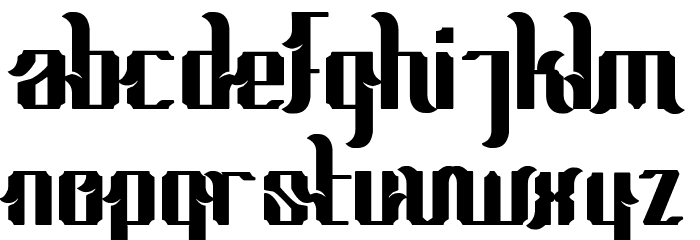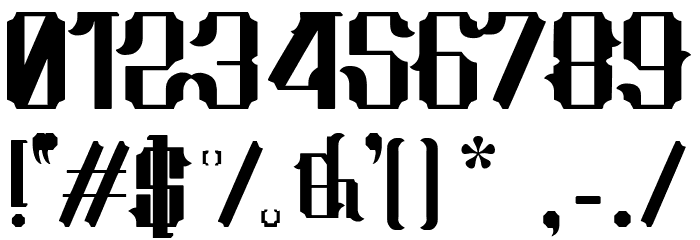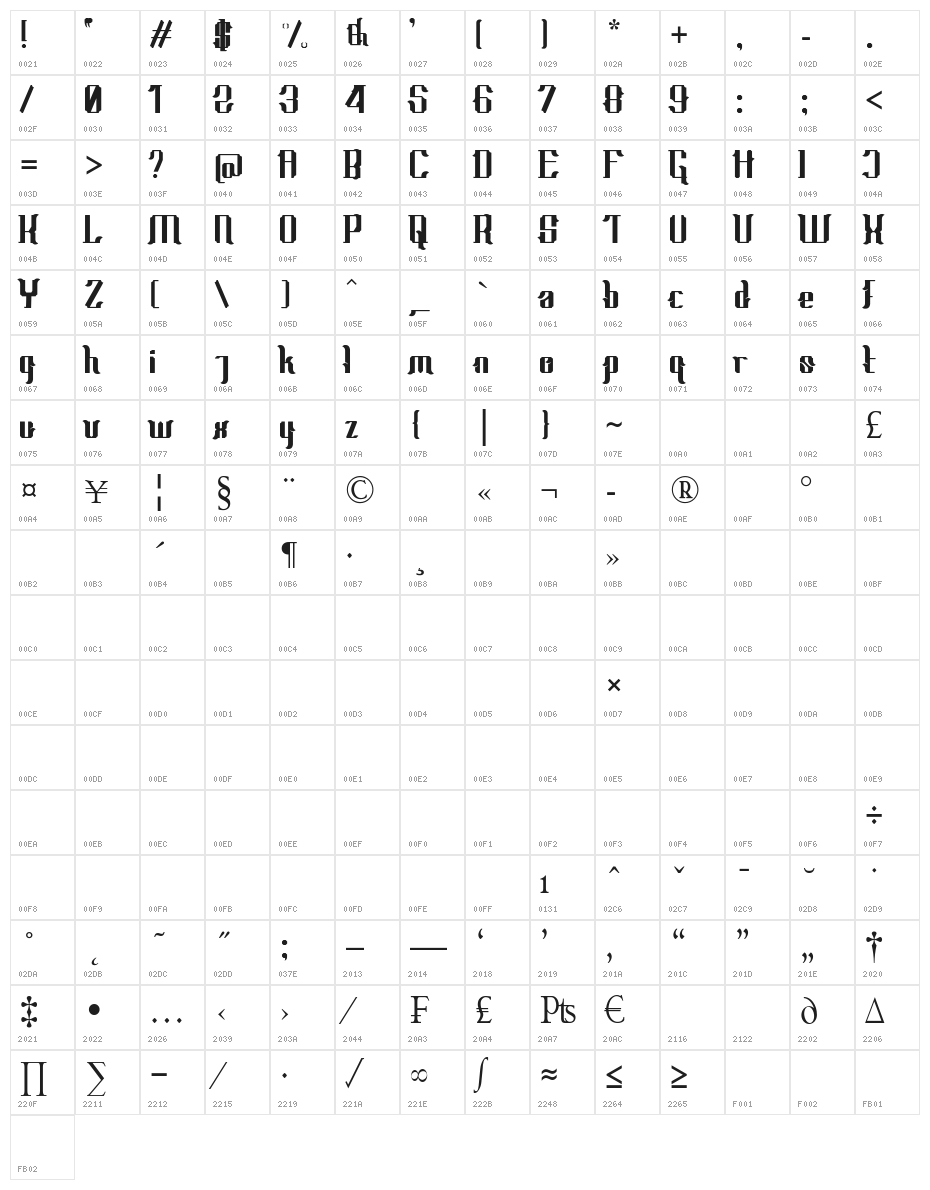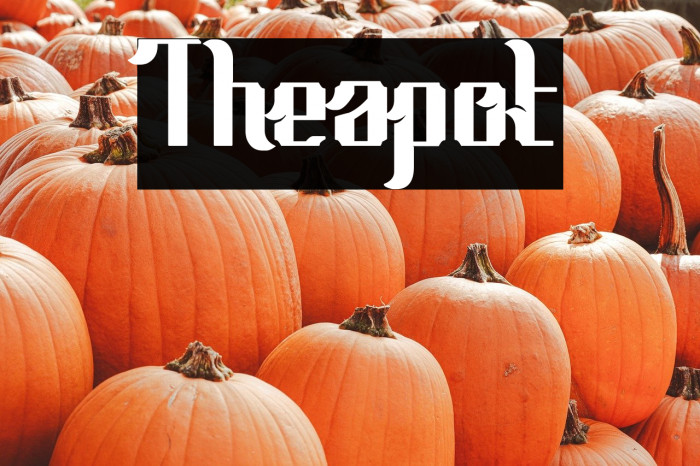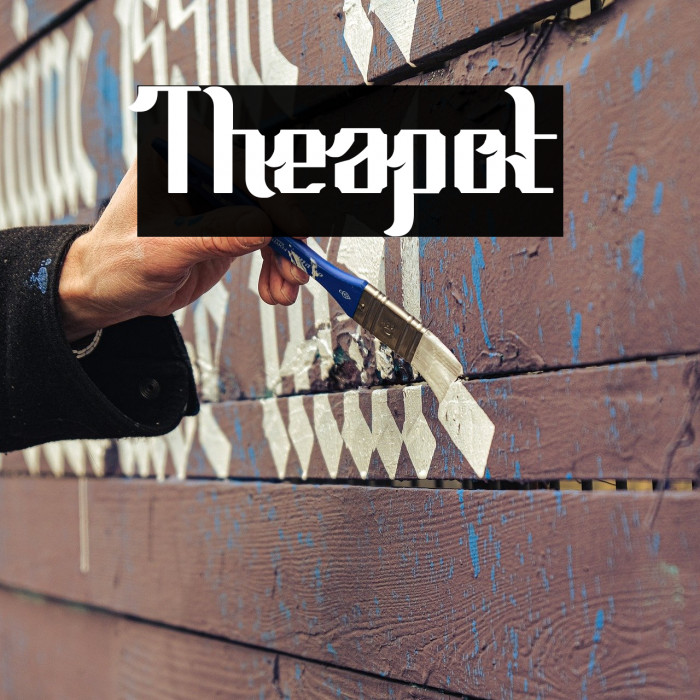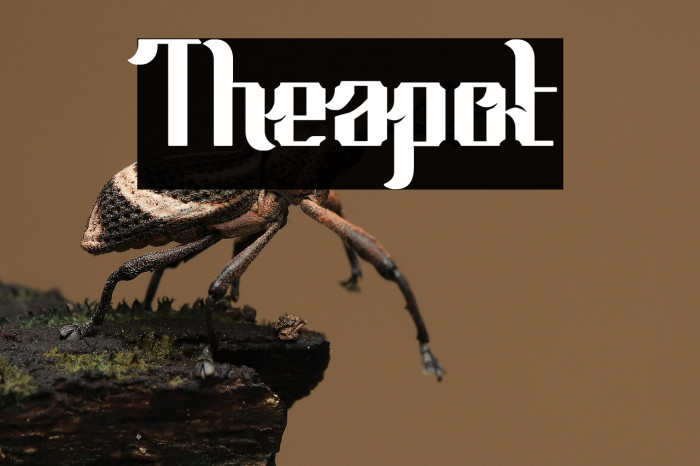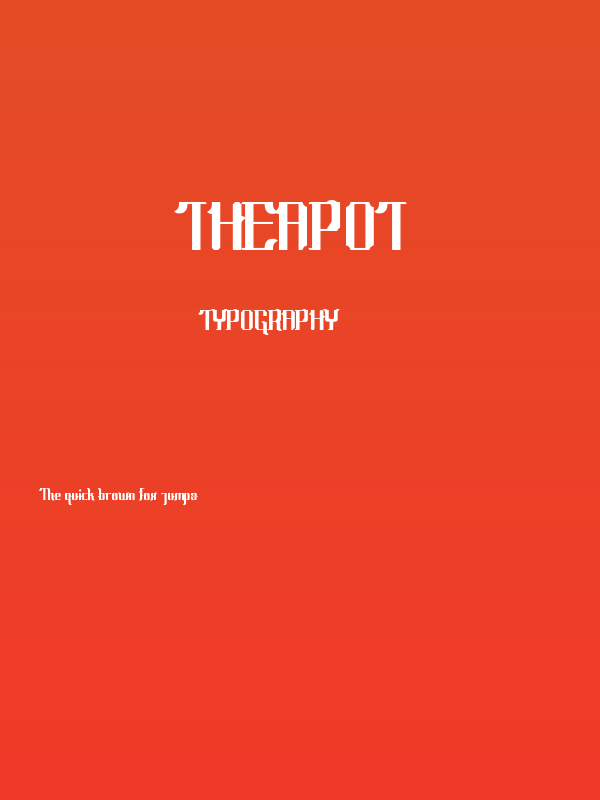
Theapot Font
This font is a bold and striking blackletter style, characterized by its sharp, angular lines and intricate detailing. The uppercase letters are tall and imposing, while the lowercase letters maintain a consistent height, creating a cohesive look. The numerals are equally bold, with a distinct gothic influence that adds to the overall dramatic appearance. Special characters are designed with the same attention to detail, ensuring they blend seamlessly with the rest of the typeface. This font's unique style makes it ideal for projects that require a historical or medieval touch.
A bold blackletter font with sharp, angular lines and a gothic influence.
- Proposed Projects: Ideal for historical documents, medieval-themed designs, posters, and branding that requires a dramatic flair.
- Category: Blackletter
- Overall Style: Vintage